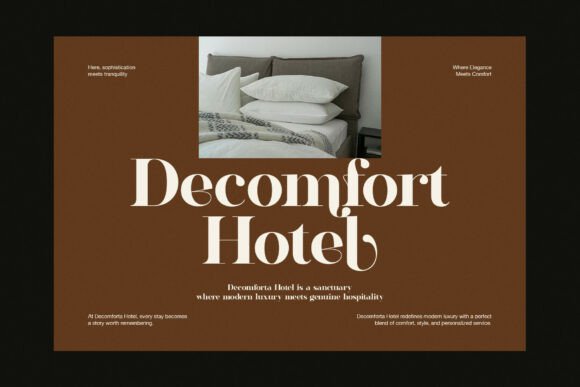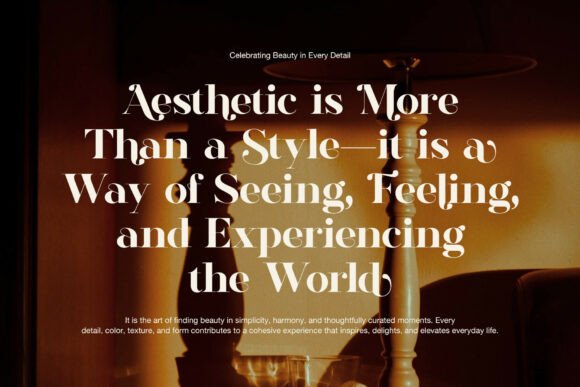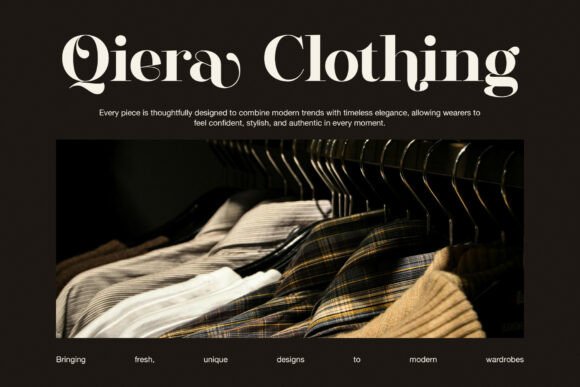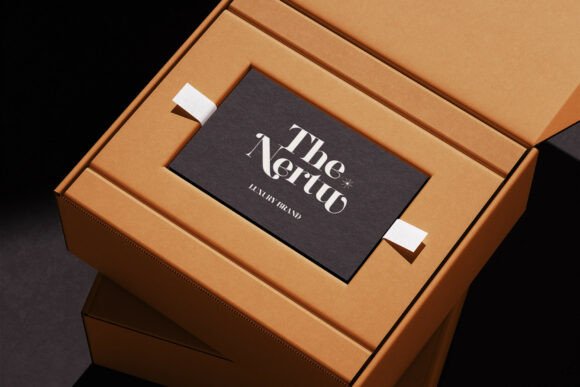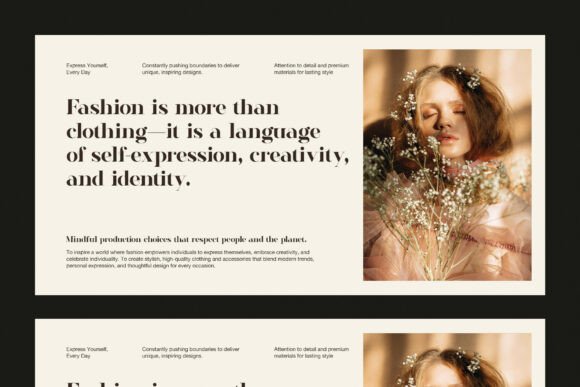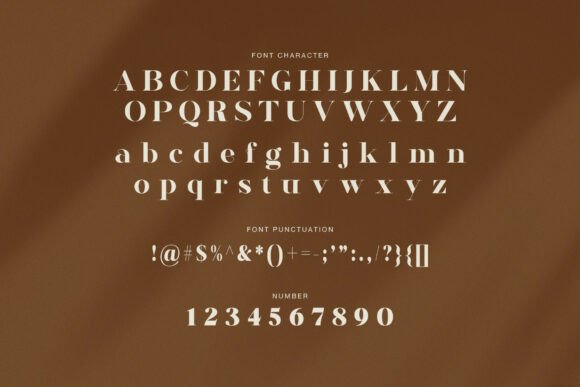
The Elusive Elegance: How Emalia Font Became My Design Savior
I still remember the project like it was yesterday. A luxury real estate client needed a sophisticated brand identity, and I was on a mission to find the perfect font. Hours turned into days, and days into weeks, as I scrolled through font after font, but none seemed to capture the essence of elegance and refinement I was looking for. That was until I stumbled upon Emalia Font. ✨
With its bold, graceful curves and sharp, delicate serifs, Emalia instantly resonated with me. It was as if the designer had read my mind and created a typeface that embodied the “timeless-glamour” soul I was searching for. In this article, I’ll share my experience with Emalia, its features, and how to make the most of this stunning font in your designs.
An Honest Review of Emalia Font
What I Love About Emalia ✨
- ✅ Balanced proportions: Emalia’s carefully crafted proportions make it perfect for a wide range of applications, from luxury branding to digital headers.
- ✅ Professional weight: The font’s weight is just right – not too light, not too heavy – making it highly versatile and easy to read.
- ✅ Elegant serifs: The delicate serifs add a touch of sophistication and refinement to any design.
- ✅ OpenType features: Emalia comes with a range of OpenType features, including stylistic alternates and glyphs, which allow for endless creative possibilities.
While Emalia is an exceptional font, there are a few minor quirks to be aware of:
- 🤔 Limited availability of certain characters: Some users have reported that certain characters, such as ligatures, are not readily available.
- ⚠️ Requires careful kerning: As with any serif font, kerning is crucial to ensure optimal readability. Be prepared to adjust the kerning to achieve the desired results.
The Backstory of Emalia Font
Emalia was designed by a team of typographers who sought to create a font that embodied the essence of timeless glamour. Inspired by classic serif fonts, they crafted a typeface that exudes sophistication, elegance, and refinement. The result is a font that is both versatile and luxurious, perfect for a wide range of applications.
Q: What is Emalia Font best suited for?
A: Emalia Font is ideal for luxury real estate branding, high-end hotel identities, artisanal fragrance labels, and authoritative digital headers for premium lifestyle blogs.